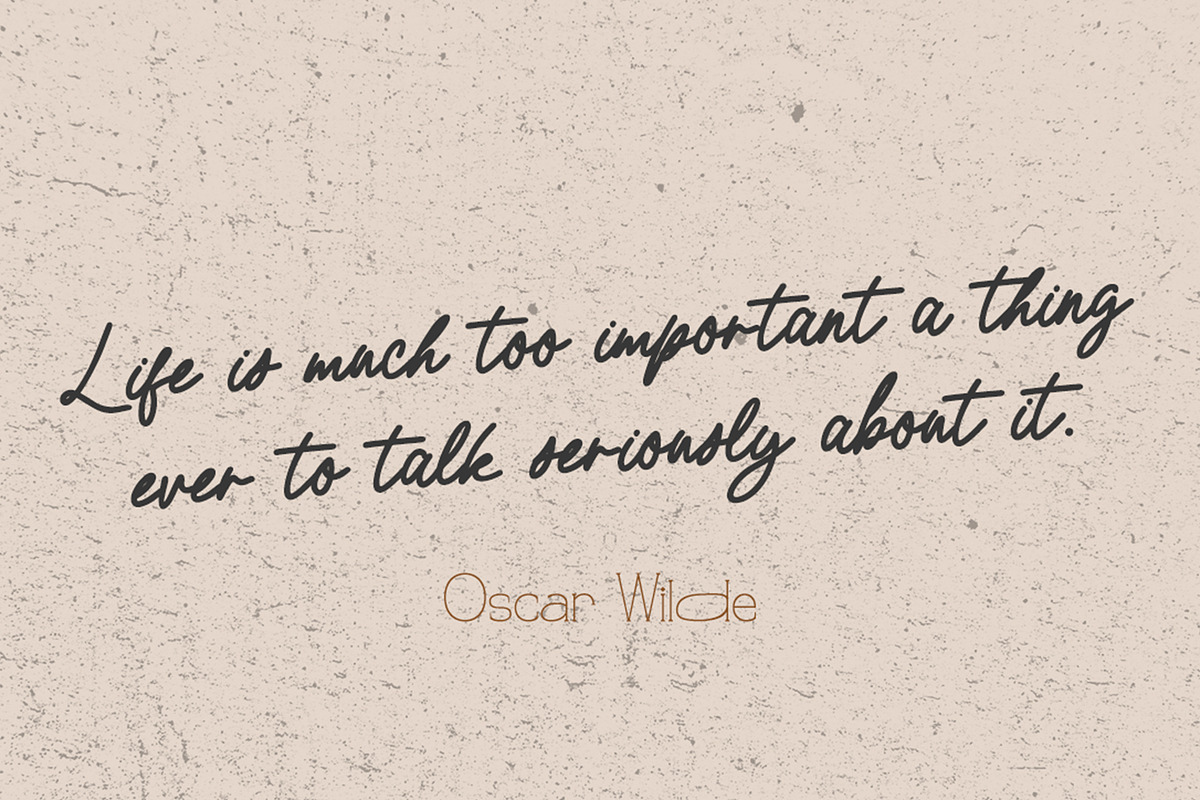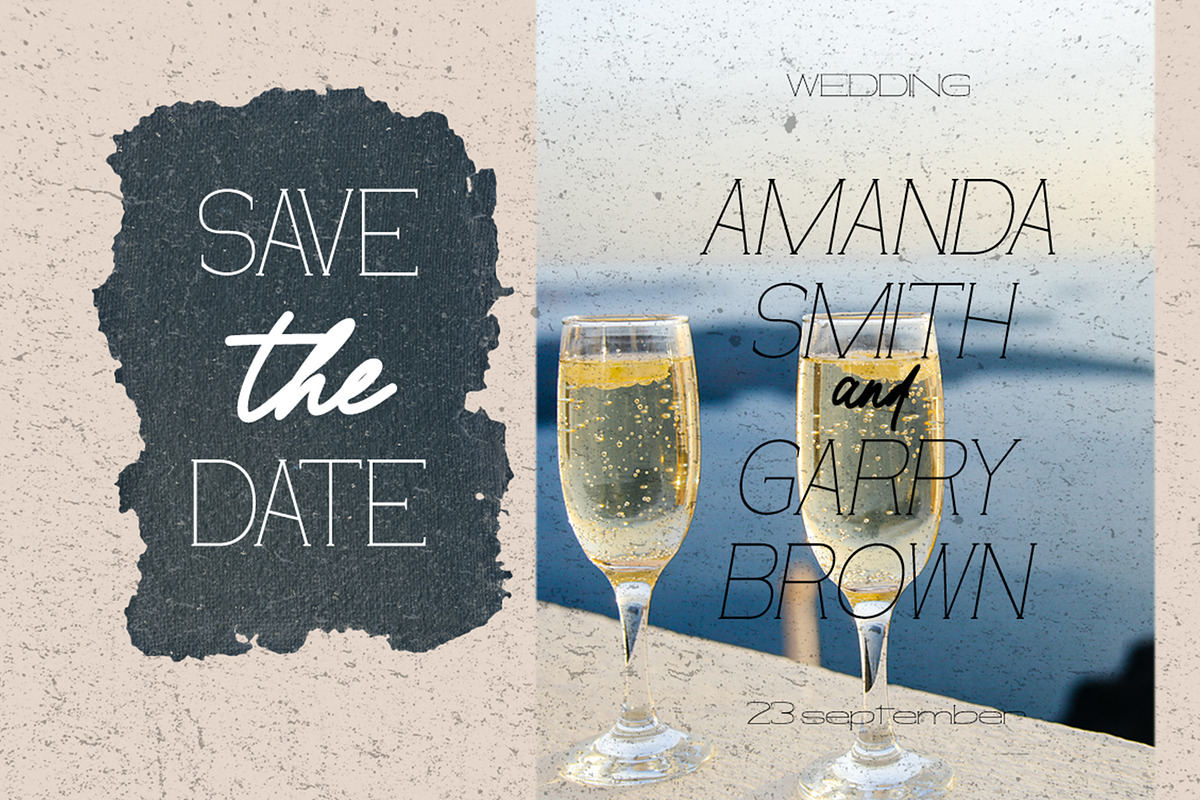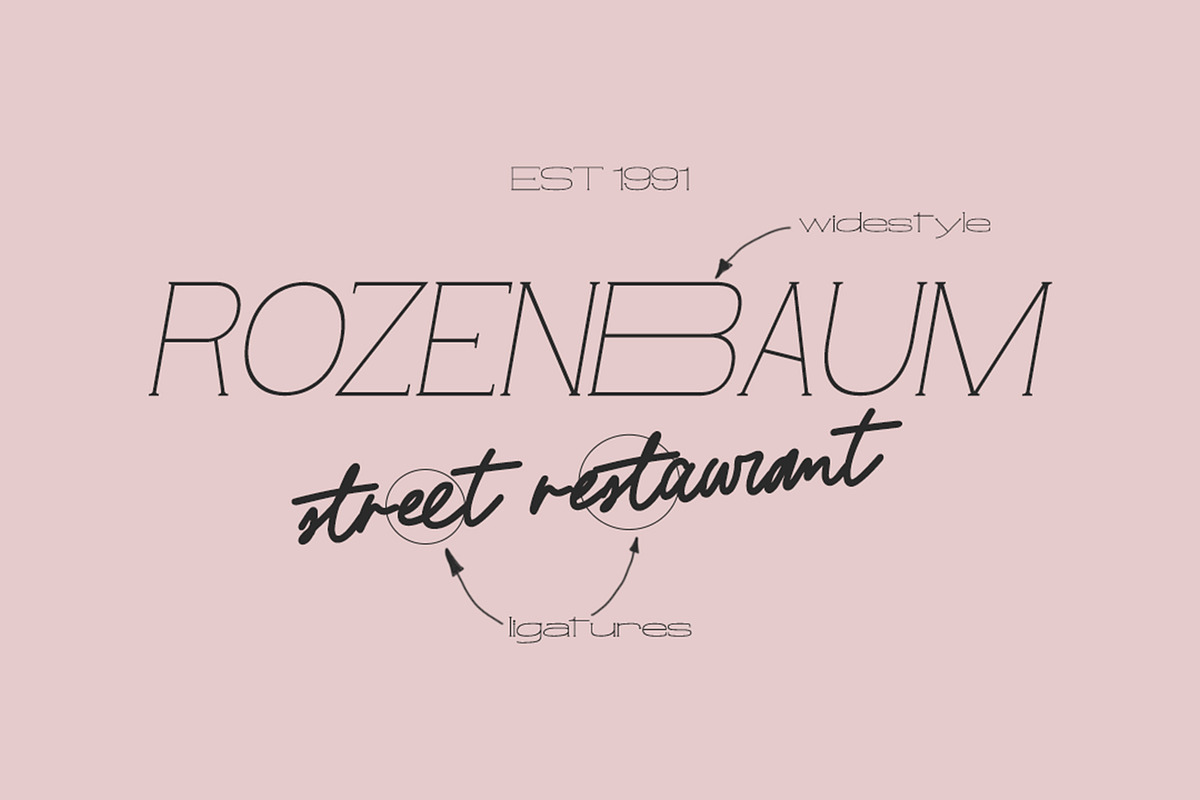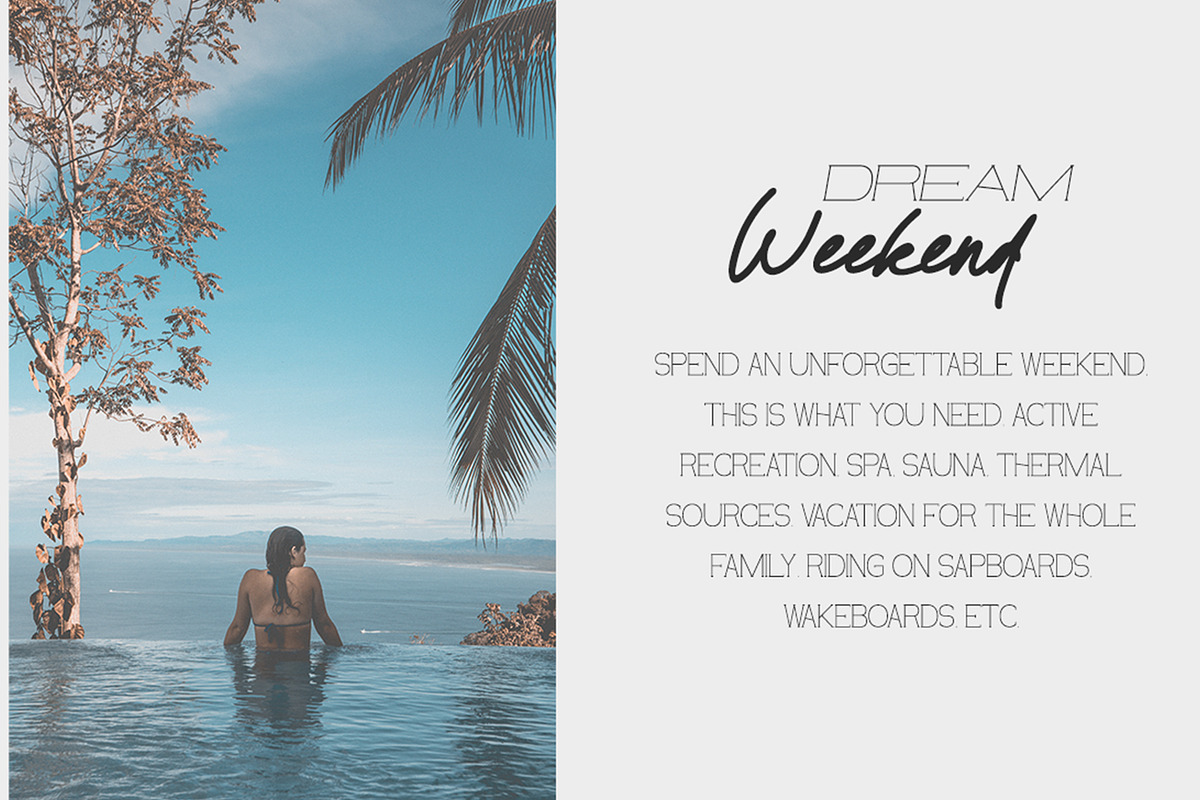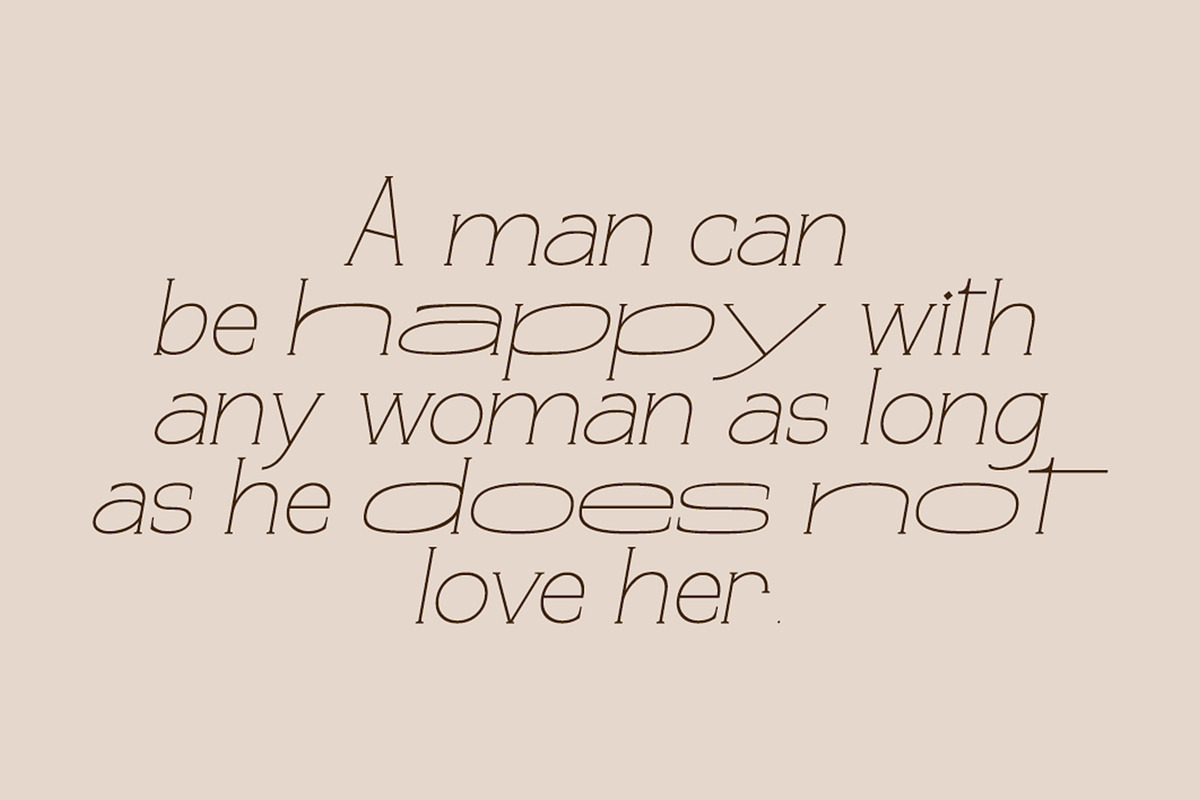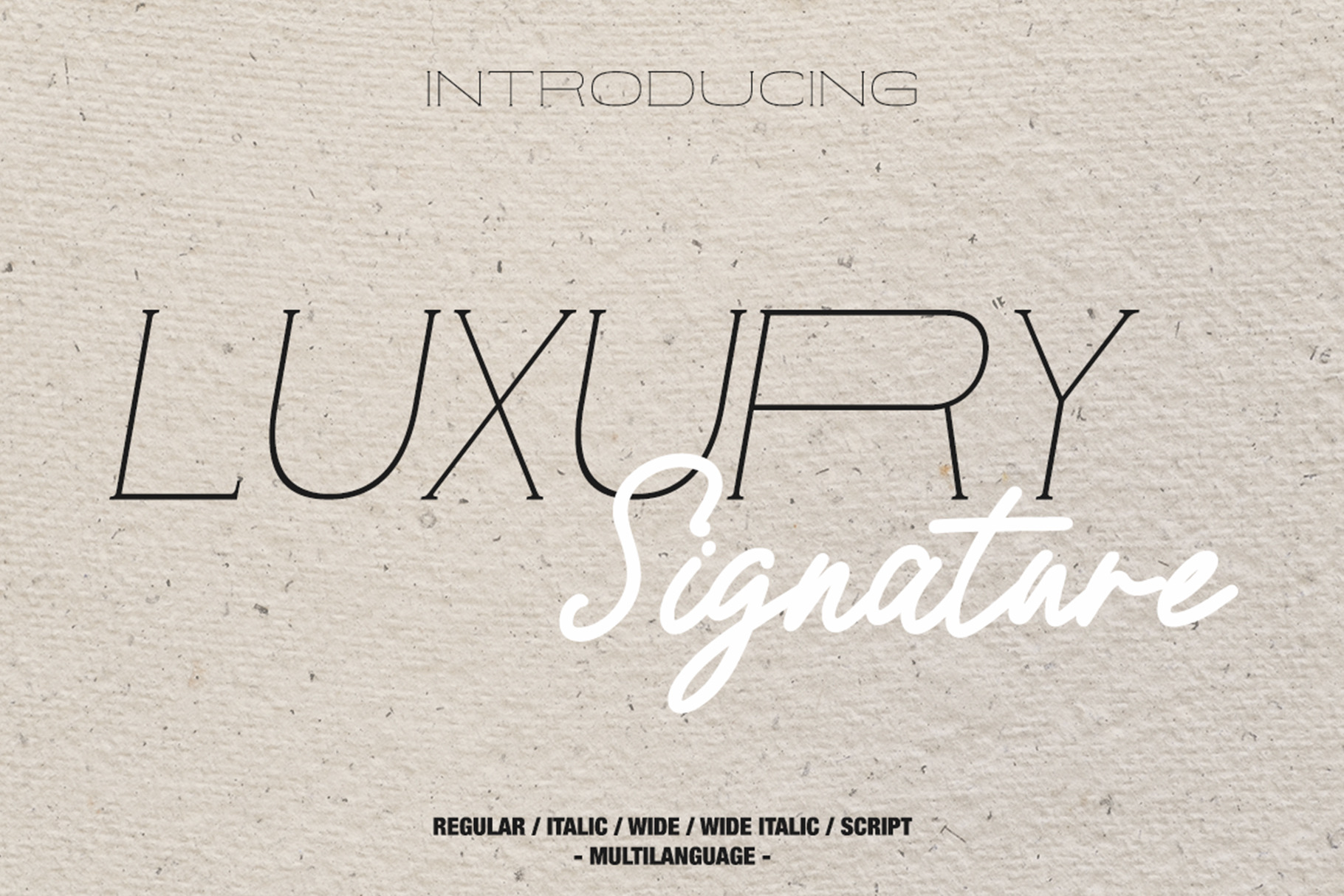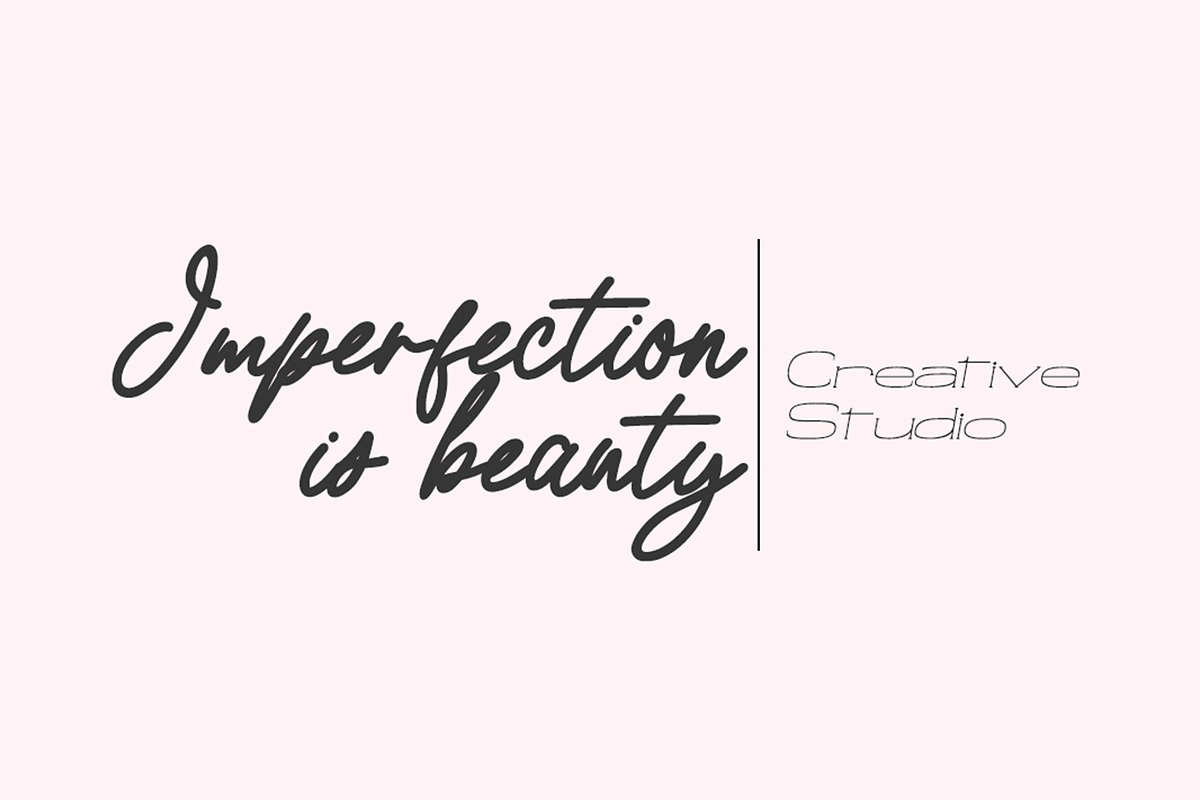
Luxury Signature font Duo
Luxury Signature font Duo - a new fresh handmade calligraphy font.
- Luxury Signature regular
- Luxury Signature italic
- Luxury Signature wide
- Luxury Signature wide italic
- Luxury Signature script
- MULTILANGUAGE OK - Ligatures OK
Very suitable for greeting cards, branding materials, business cards, quotes, posters, and more!This font are perfect for wedding postcard. Or you can create perfect and unique design of your logo, blog, stationery, marketing, magazines and more :)
Ligatures Script UpperCase & Lowercase Numerals & Punctuations All style font Multilingualcharacters(AÀÁÂÃÄÅCÇDÐEÈÉÊËIÌÍÎÏNÑOØÒÓÔÕÖUÙÜÚÛWYÝŸŸ ÆŒßÞàáâãäåæçèéêëìíîïðñòóôõöøùúûüýÿ)